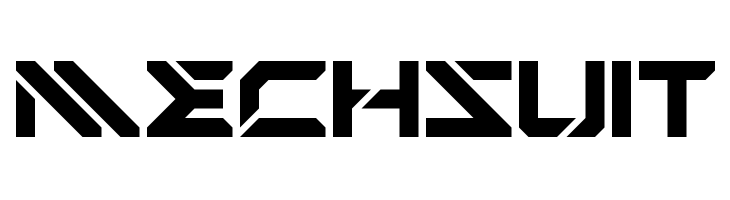
A bold, italicized font with a dynamic and energetic style.
A bold, modern typeface with thick strokes and a strong presence.
A bold, decorative Blackletter font with intricate medieval styling.
A modern, geometric sans-serif font with clean lines and uniform strokes.
A classic serif font with strong, elegant characters and excellent readability.
A tall, narrow font with a modern and minimalistic design.
A modern, semi-bold italic font with a sleek and dynamic appearance.
A clean, modern font with balanced spacing and clear characters.
A bold, geometric font with a futuristic and cohesive design.
An elegant, elongated font with artistic curves and a modern calligraphic style.
An ornate, decorative font with intricate swirls and flourishes.
A modern, narrow sans-serif font with clean, uniform strokes.
A bold, Gothic-inspired stencil font with sharp, angular edges.
A playful, casual handwritten font with rounded, irregular letterforms.
A bold, italic font with a modern and dynamic style.
A bold, rounded sans-serif font with a modern and clean design.
A modern, minimalistic sans-serif typeface with clean lines and balanced proportions.
An elegant script font with fluid, cursive strokes and a sophisticated appearance.
A bold, playful font with rounded edges and a chunky, whimsical style.
A bold, distressed font with a grunge texture and rugged appearance.